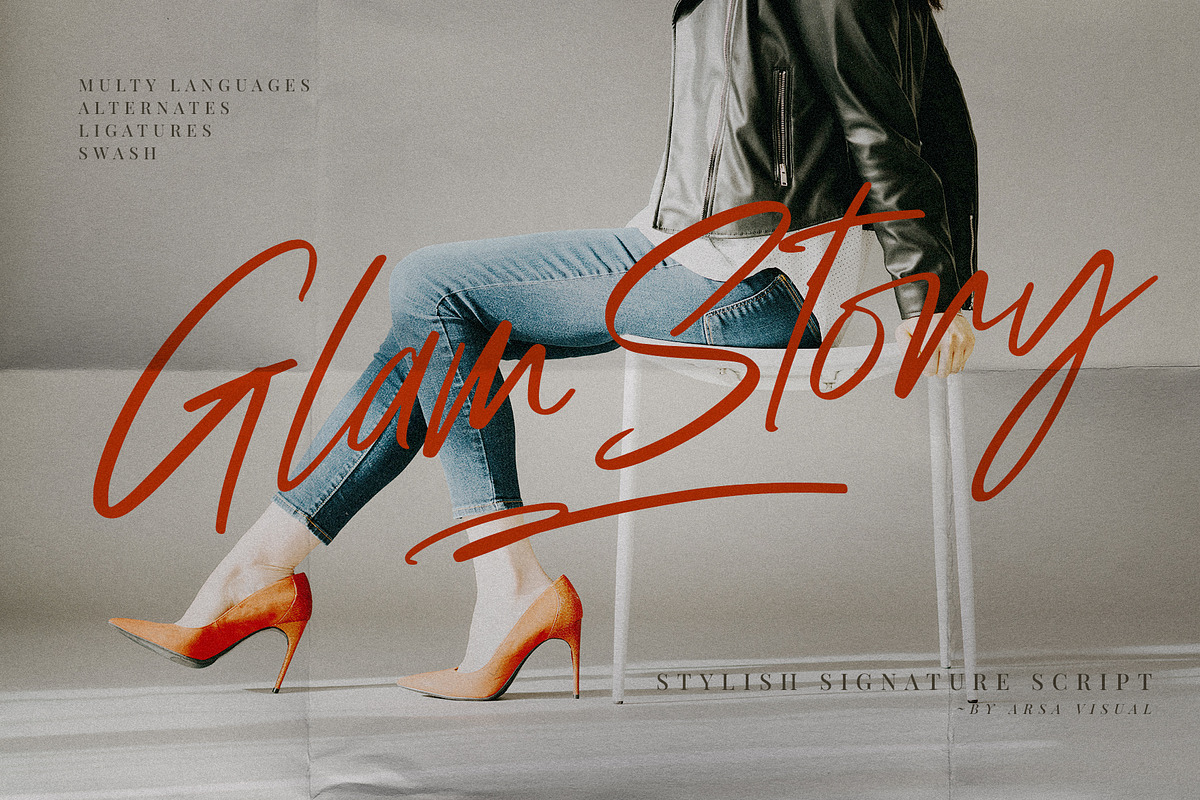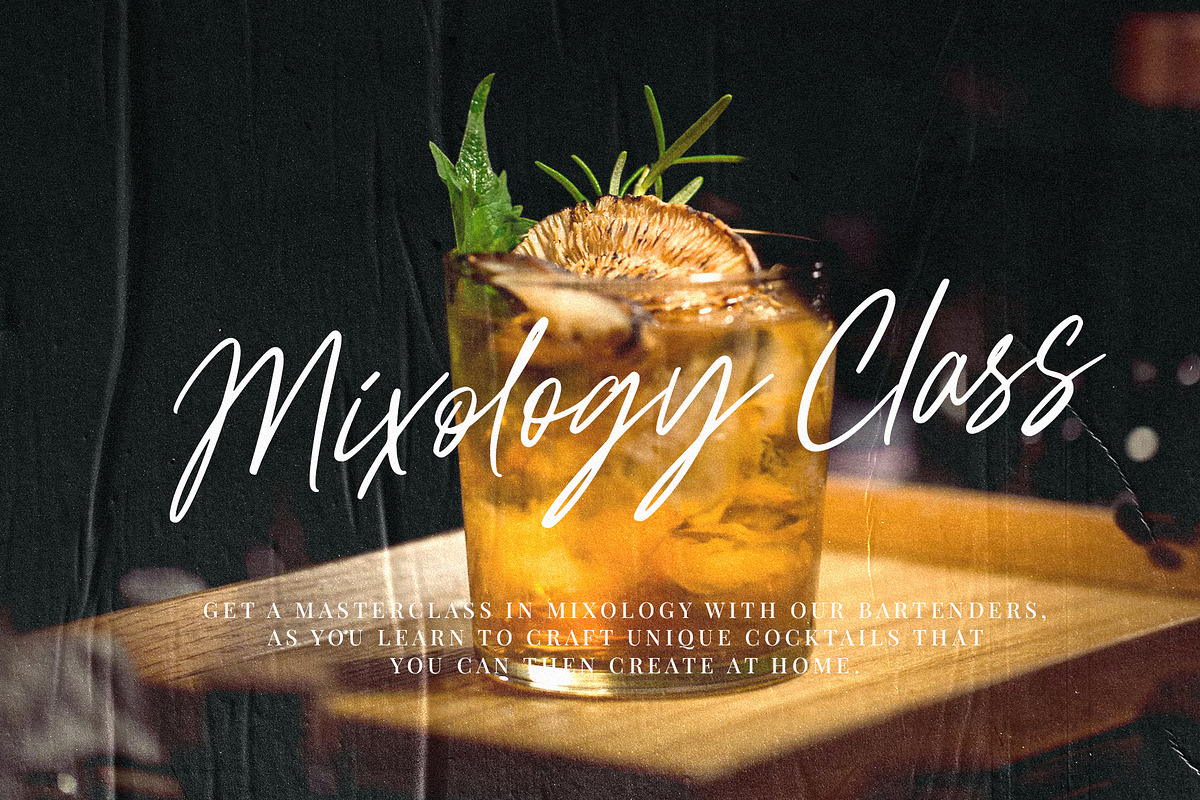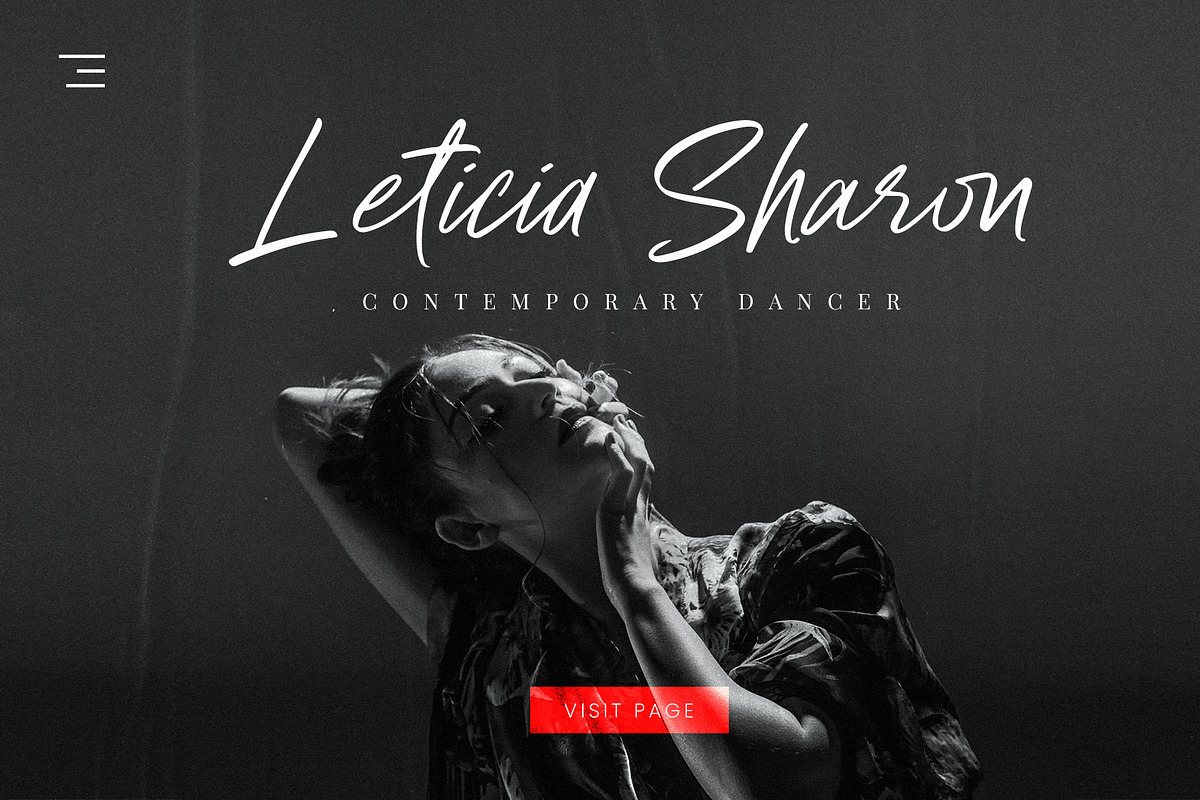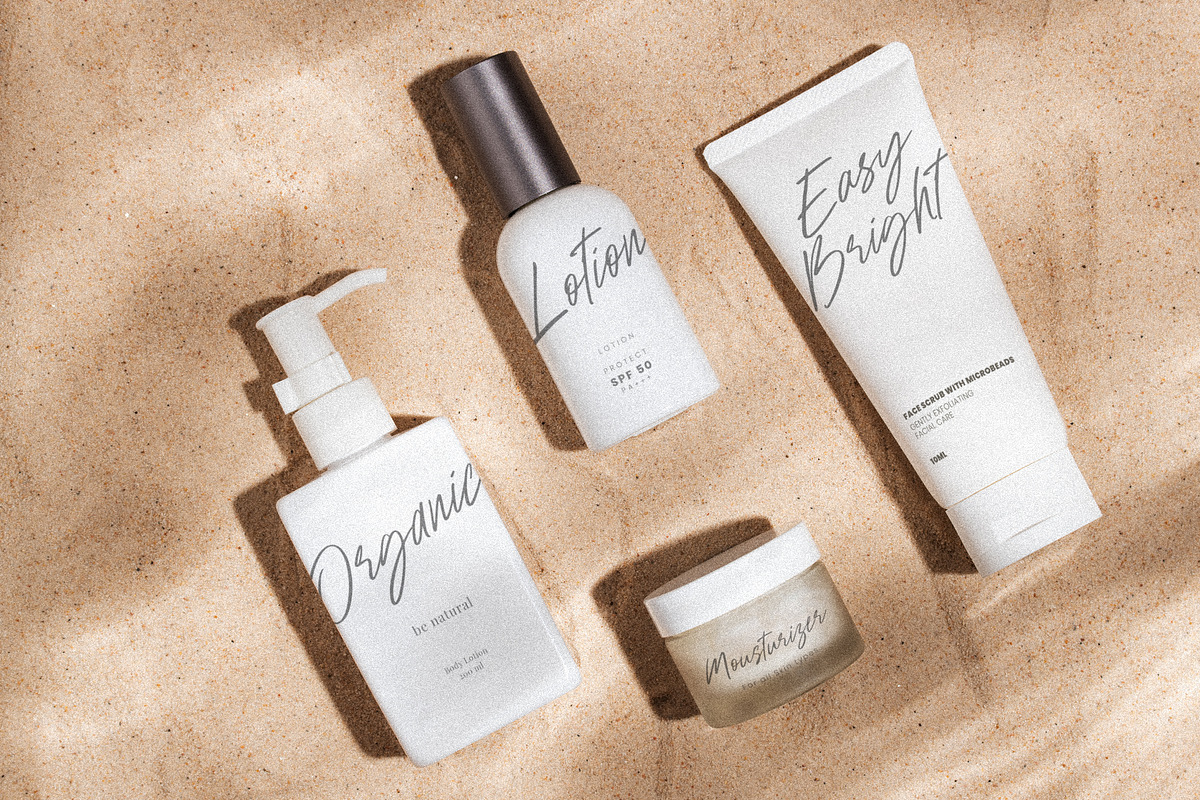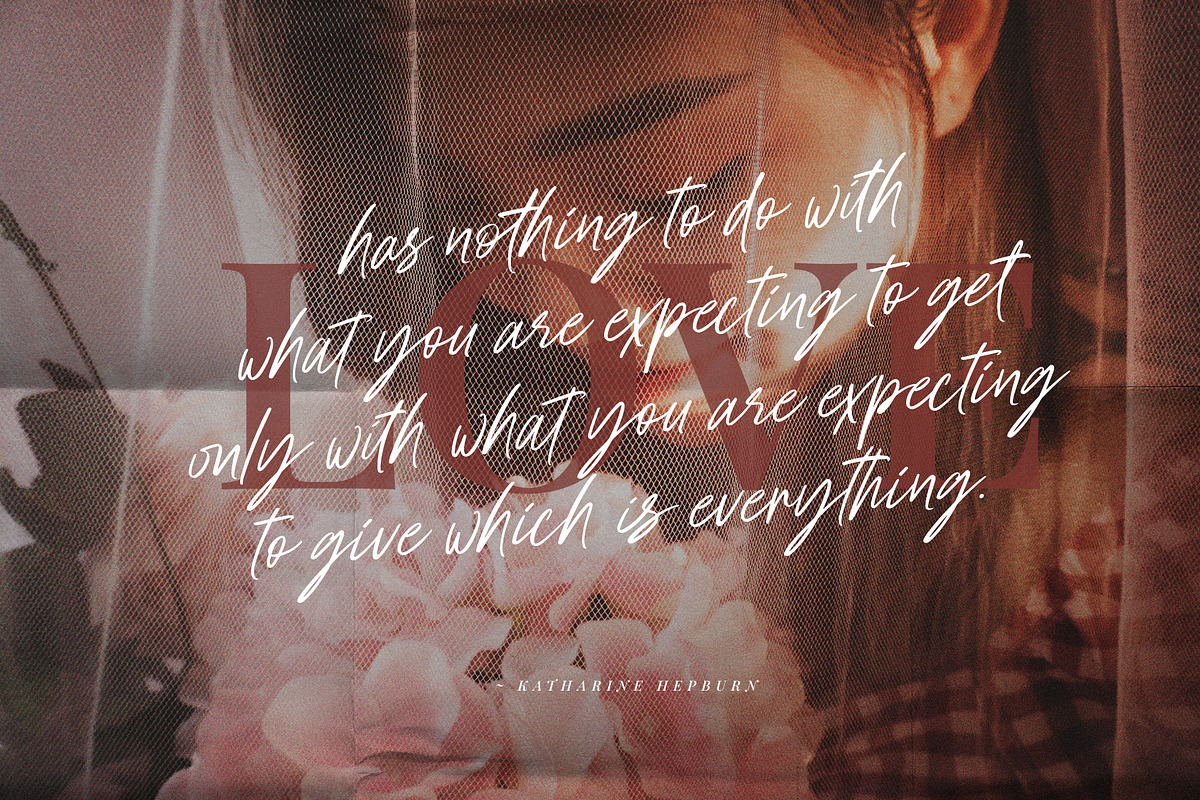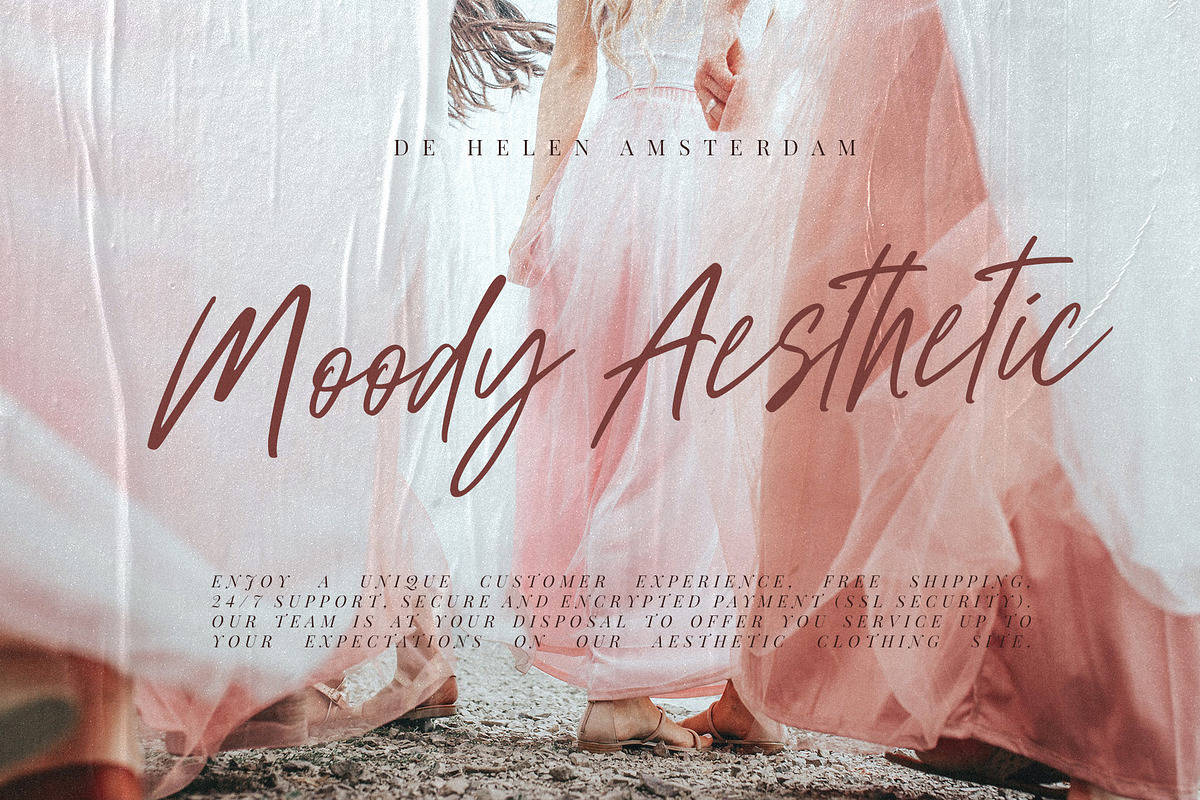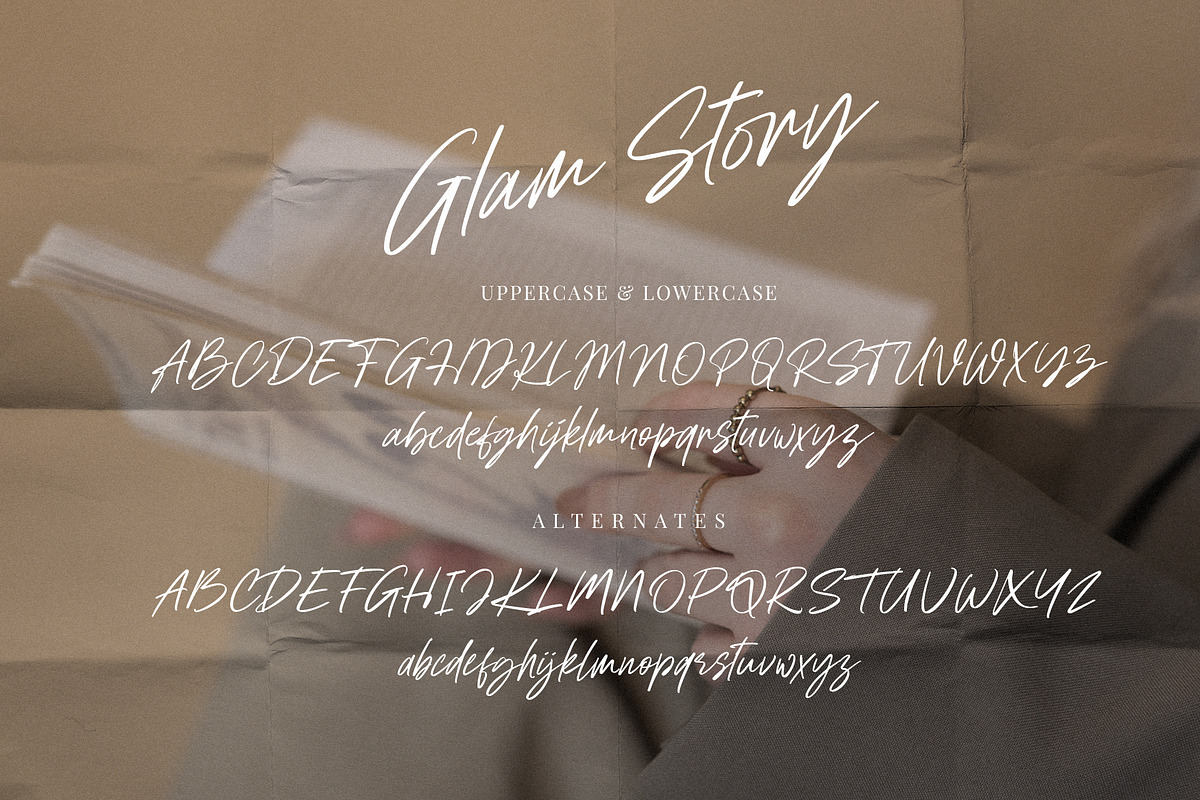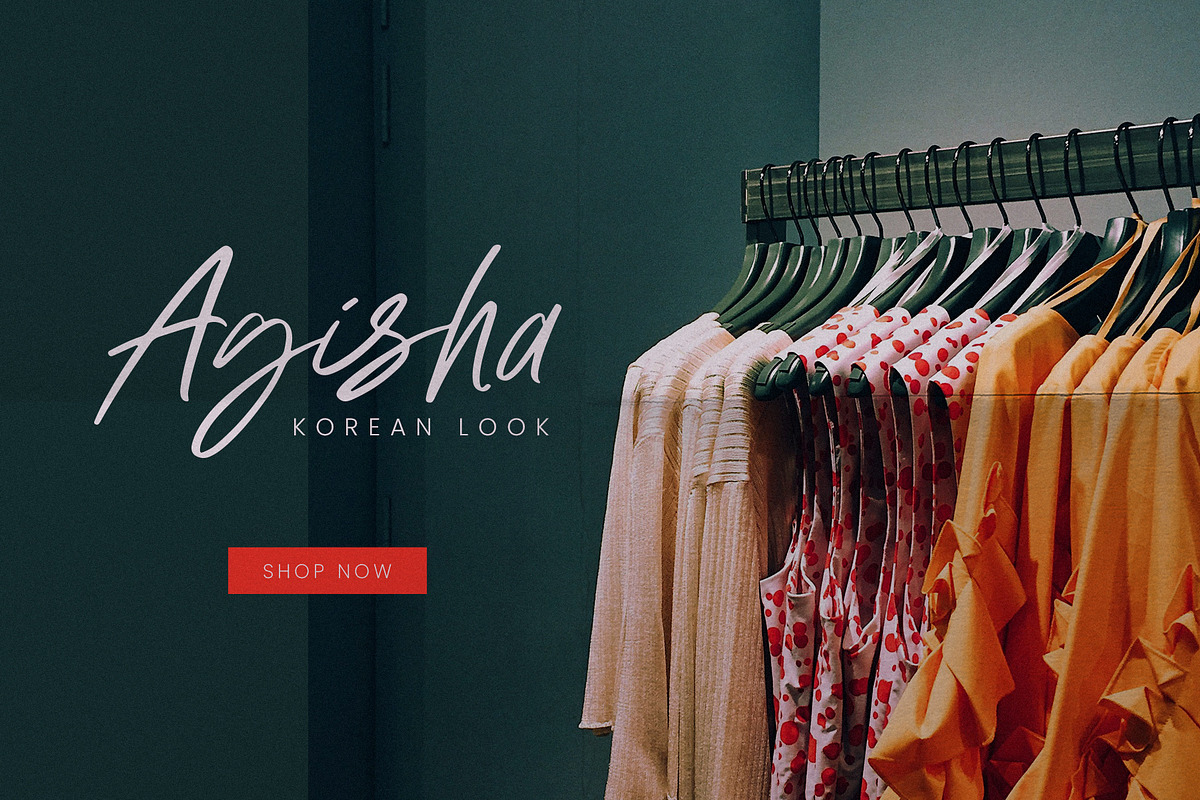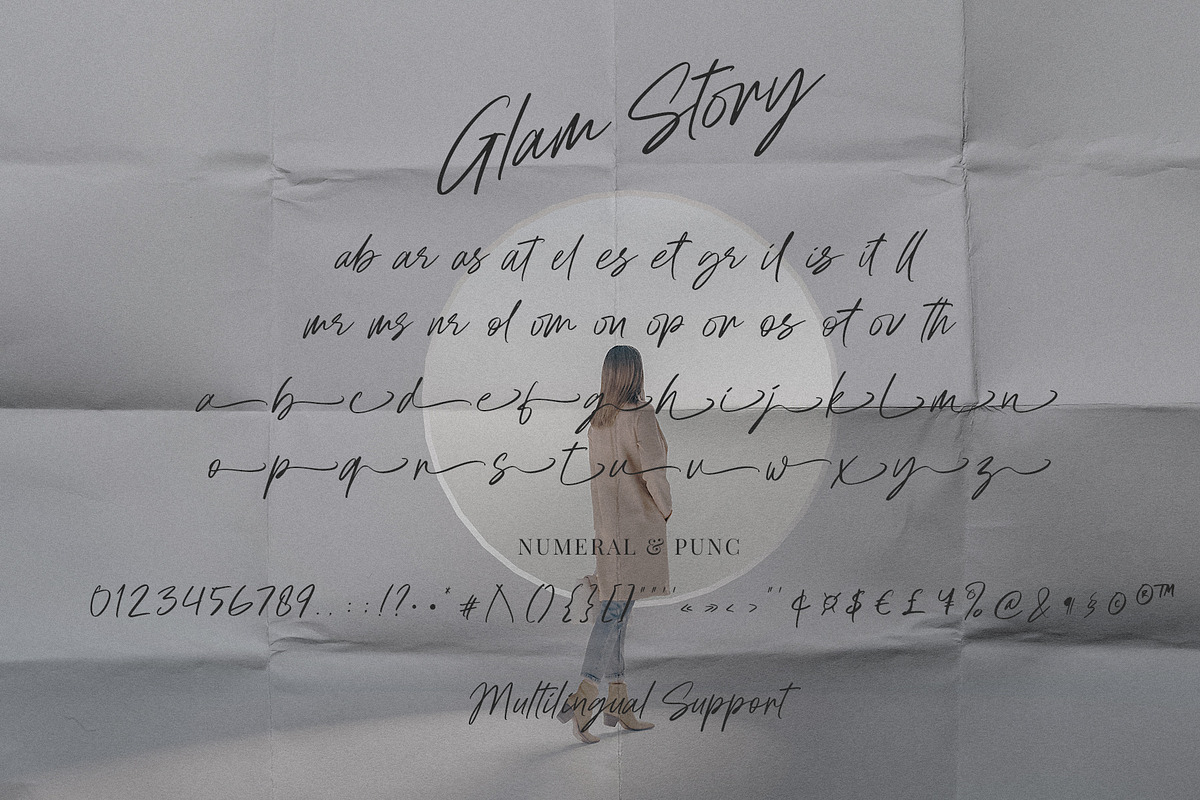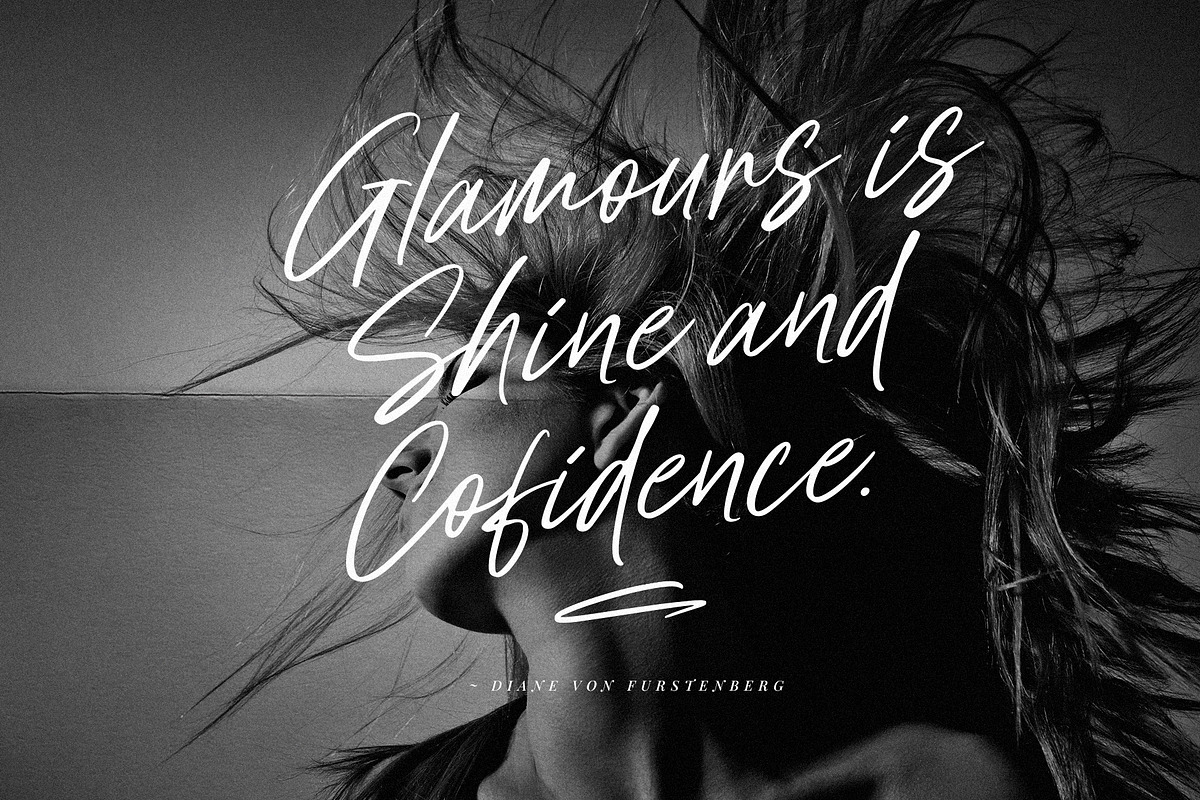
Glam Story | Script
Glam Story is a natural handwritten font... Glam Story perfect for logos, invitations, quote, stationery, wedding designs, social media posts, advertisements, product packaging, product designs, label, photography, watermark, special events, etc.
- Uppercase and Lowercase Alternates
- Number and Punctuation
- Multi Languages